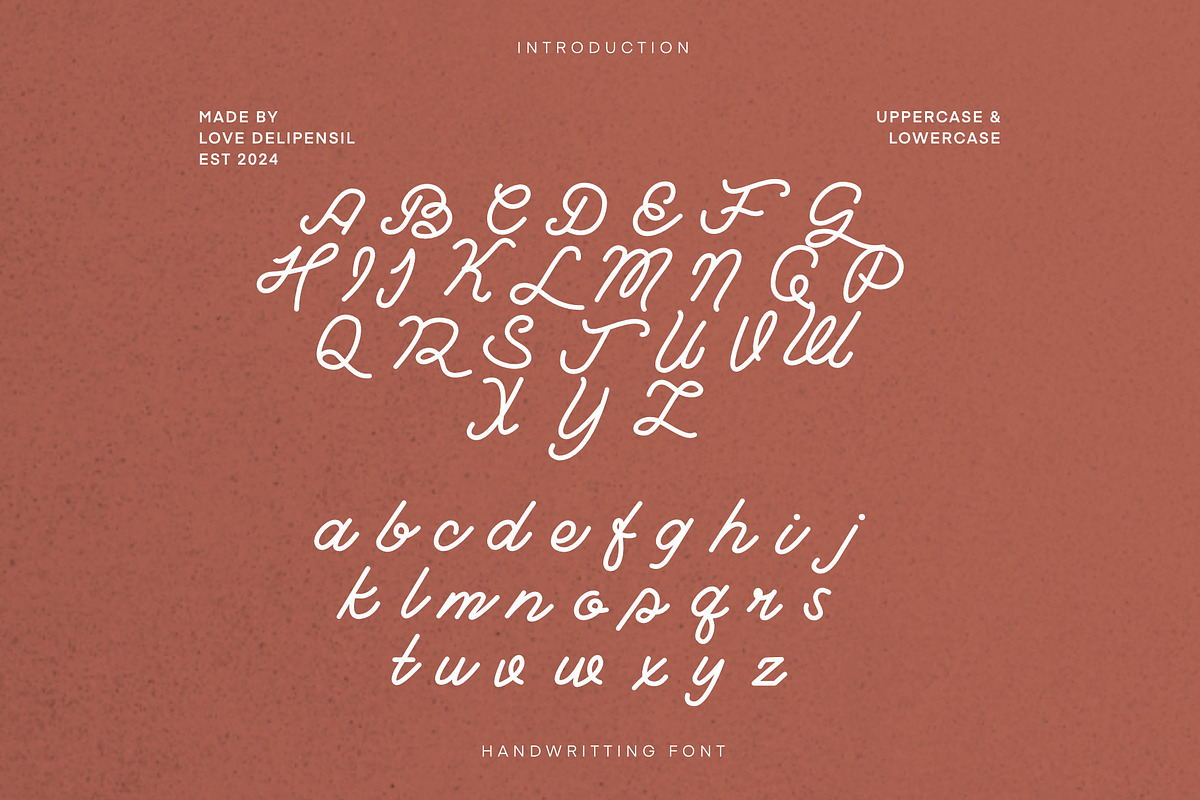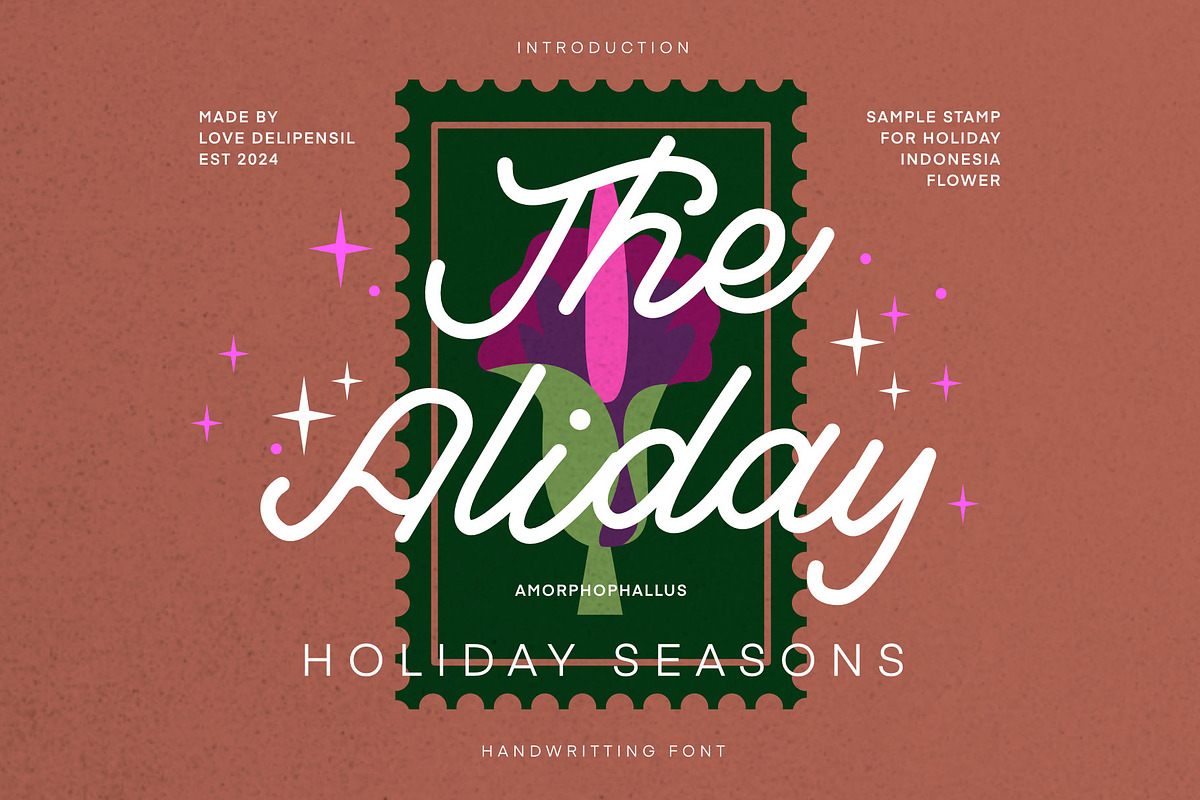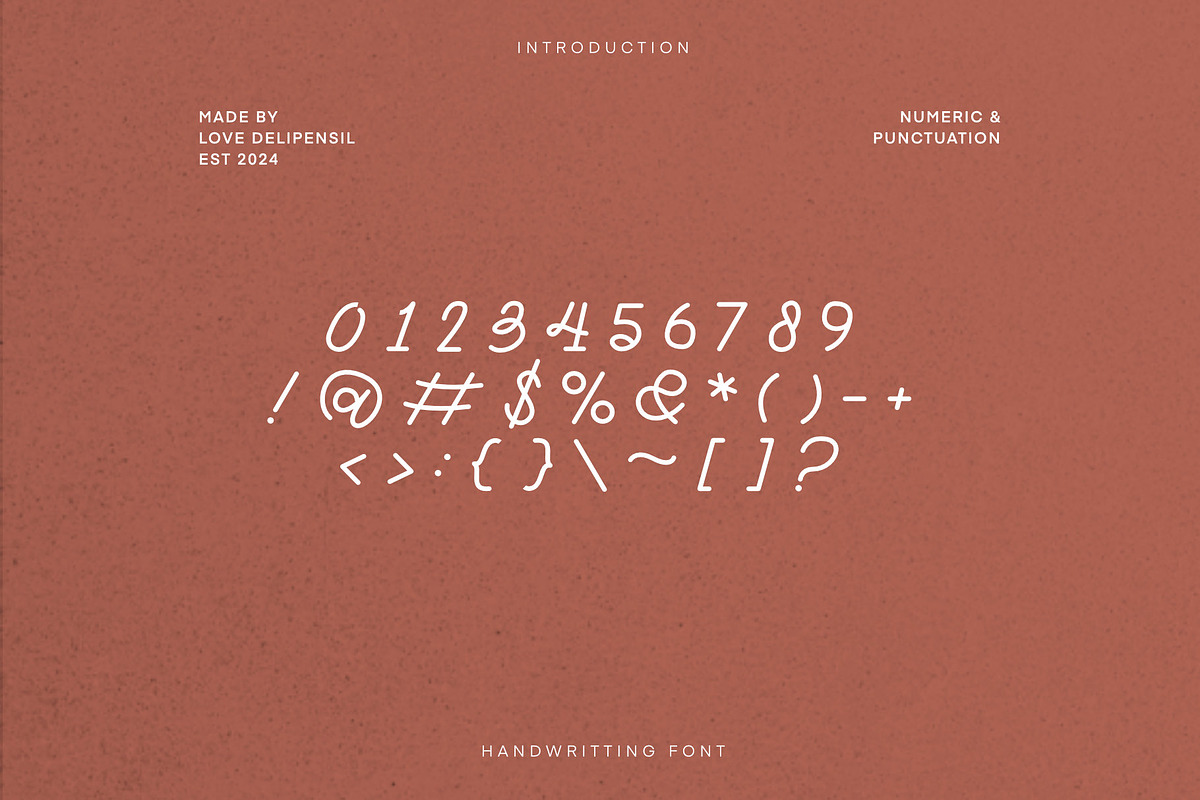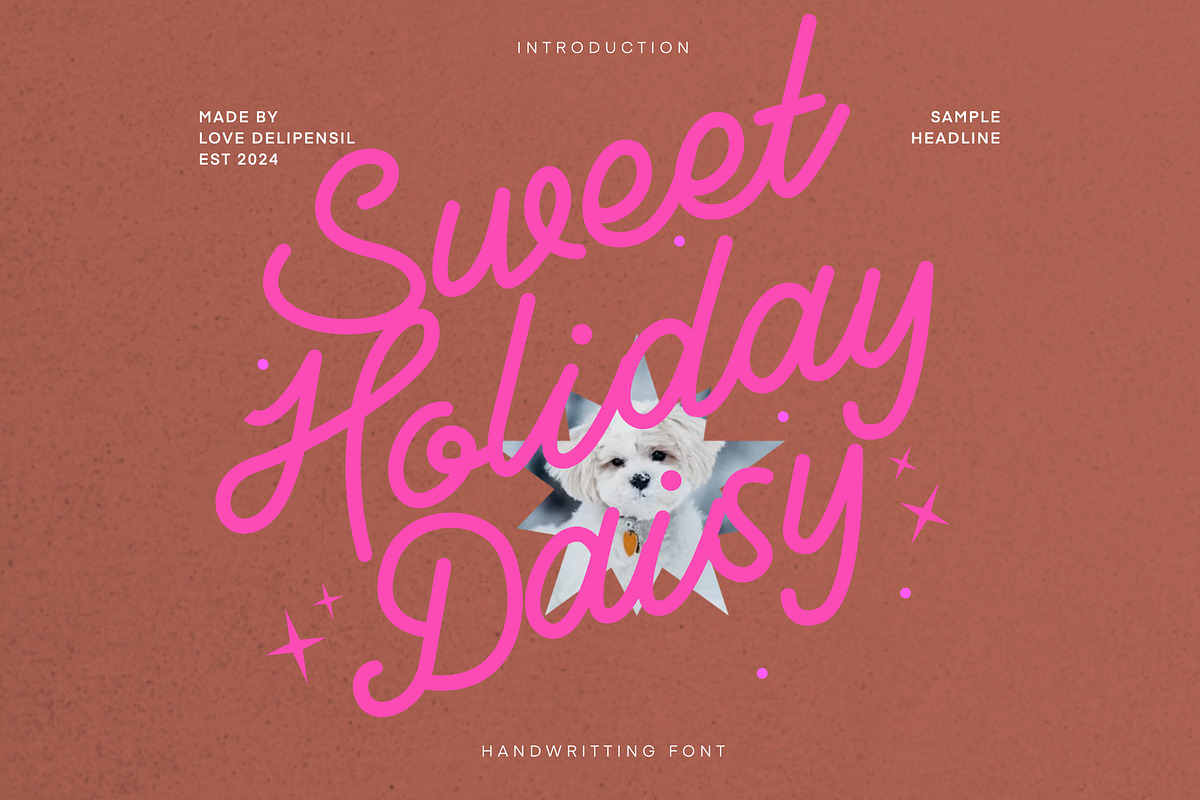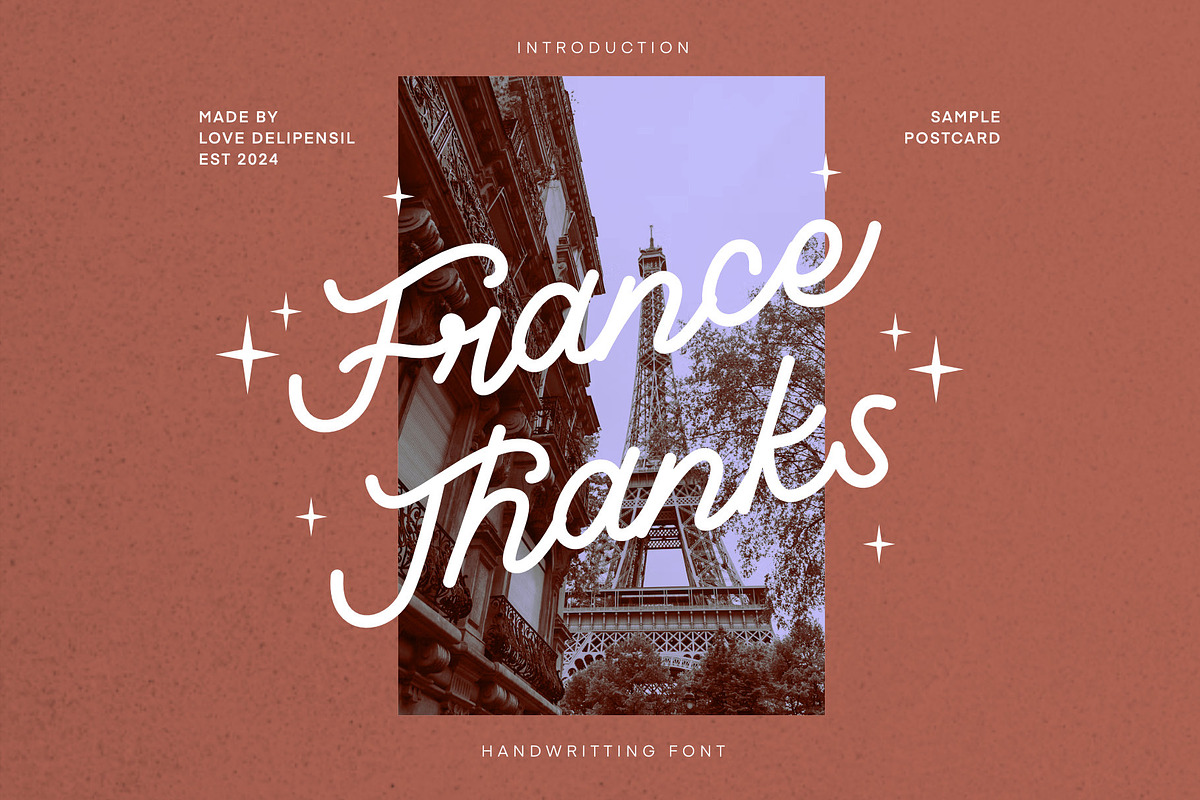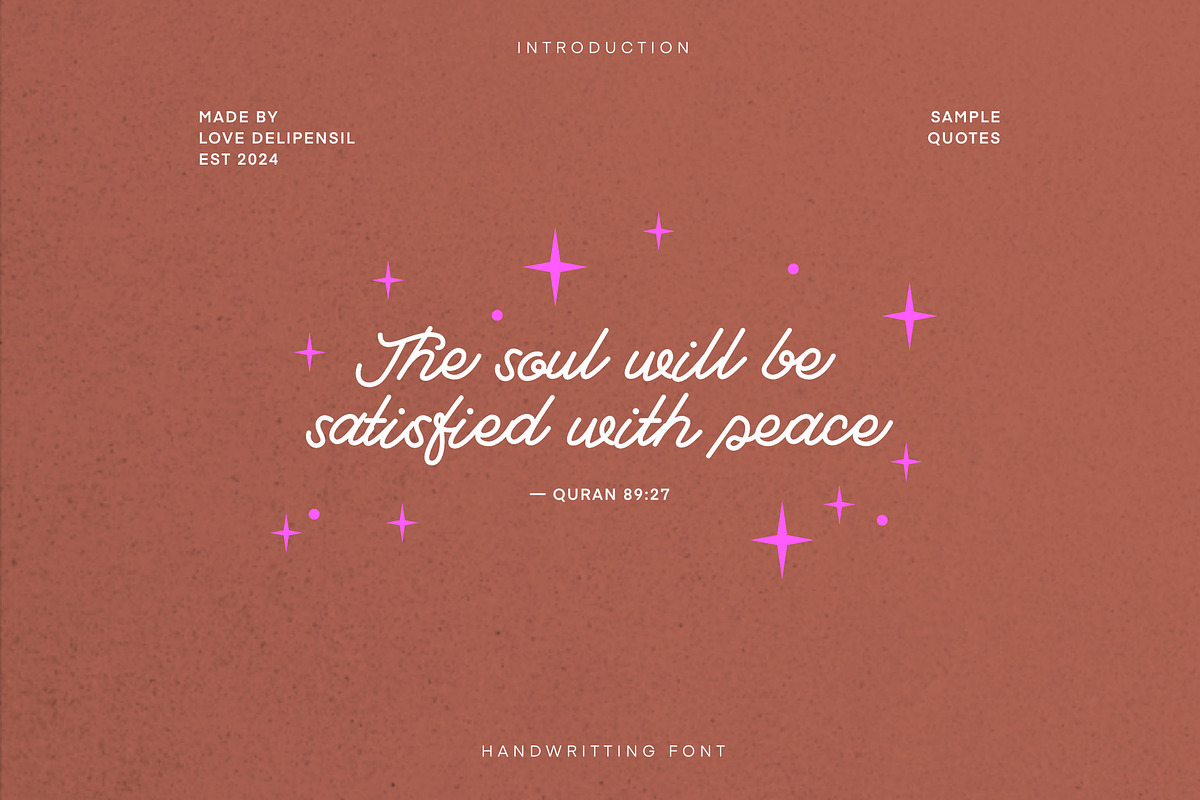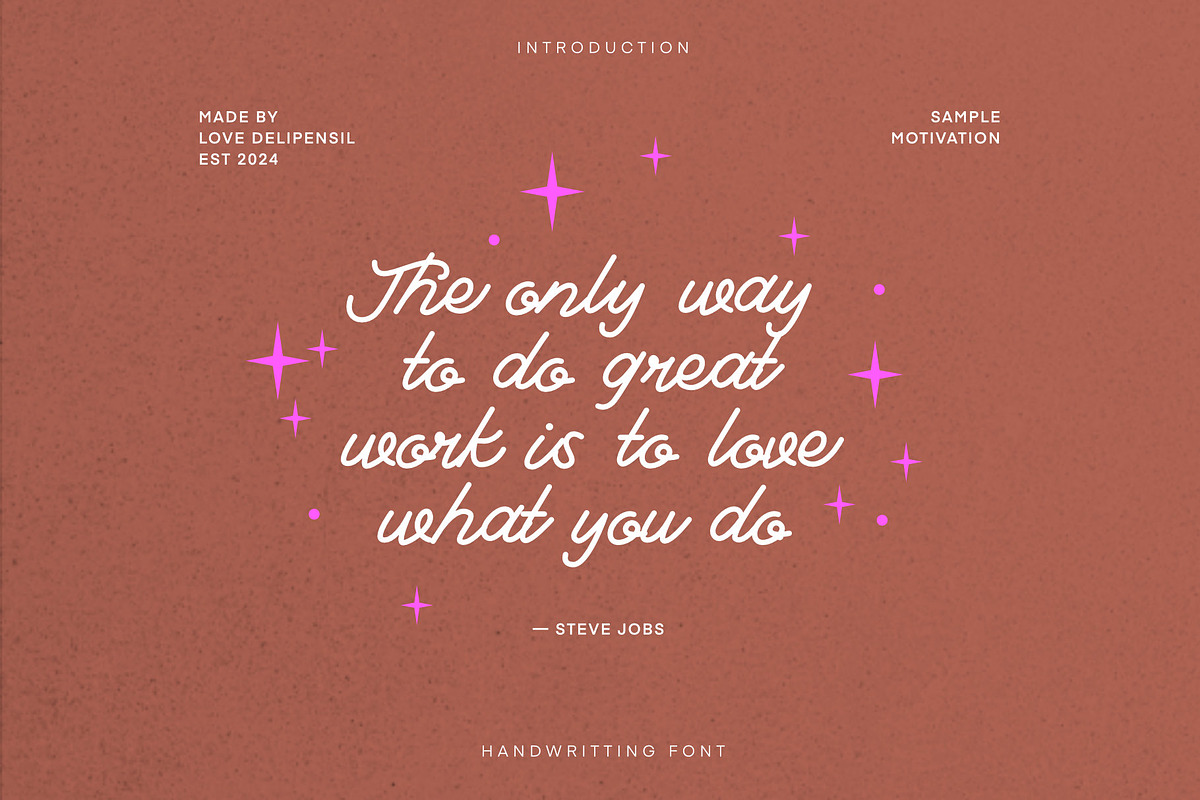
Aliday - Holiday Handwriting Type
Bismillah, Introduction Aliday - Holiday Handwriting Type
✨ Holiday it's coming ! 🌸 Really happy can made new style handwriting to support the moment & your product, use for postcard, headline, and favourite moment title memorable in your hand